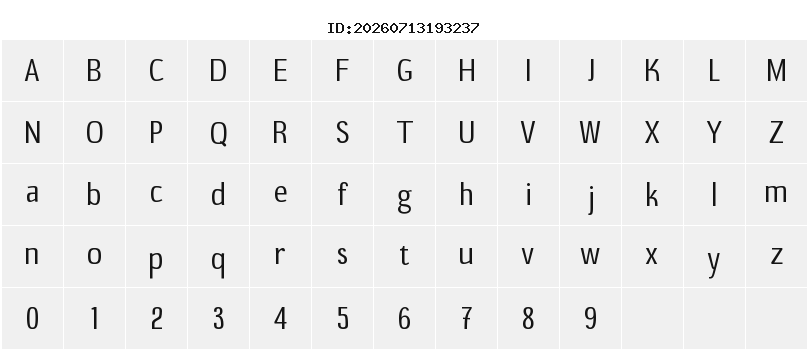
B20 Sans Preview
• Font Name: B20 Sans
• Full Font Name: B20 Sans
• Version: Version 1.00 October 8, 2013, initial release
About B20 Sans.ttf
B20 Sans.ttf is a modern, elegant sans-serif font designed for ultimate readability and visual harmony. Perfect for branding, headlines, web design, and print materials.